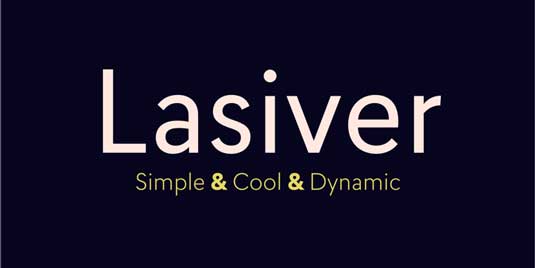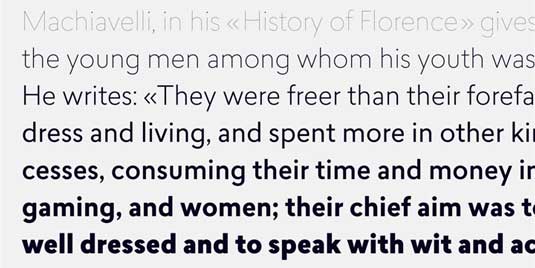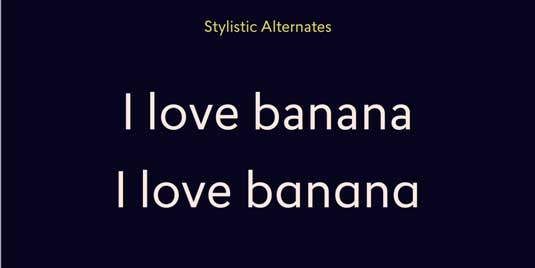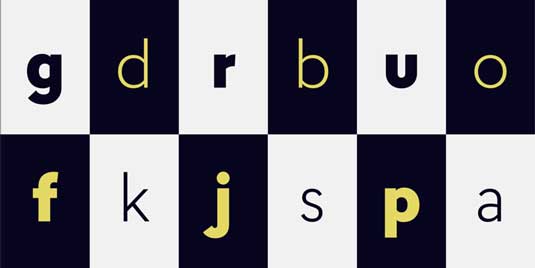
Font of the day: Lasiver
Lasiver from Type Dynamic
A simple, cool and dynamic type family, Lasiver includes seven weights, from hairline to black, each with corresponding italics. Offered by Swiss font foundry Type Dynamic, Lasiver is available to purchase over on MyFonts.